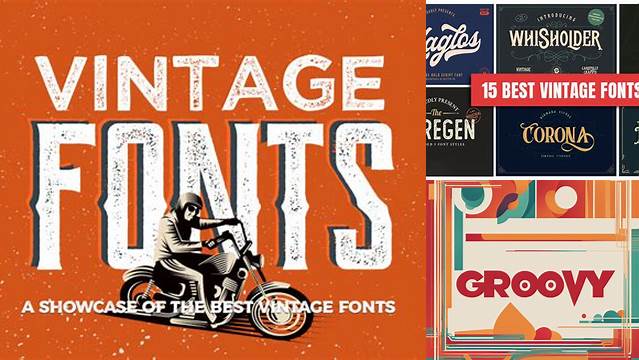
Best Retro Fonts 2026: Nostalgic Typography Guide
Hey guys! Are you ready to take a trip down memory lane with some seriously cool fonts? In the ever-evolving world of design, what's old is always new again. Retro fonts are making a huge comeback, and for good reason. They add a touch of nostalgia, character, and uniqueness to any project. Whether you're working on a branding campaign, website design, or even a personal project, the right retro font can make all the difference. So, let's dive into the best retro fonts you need to know about for 2026!
Why Retro Fonts are Making a Comeback
Retro fonts are experiencing a massive resurgence in popularity, and there are several compelling reasons why this is happening. In a world dominated by sleek, modern designs, the charm and character of retro typography offer a refreshing alternative. These fonts evoke a sense of nostalgia, reminding us of simpler times and familiar aesthetics from the past. This nostalgic appeal can be incredibly powerful, especially in marketing and branding, where creating an emotional connection with the audience is crucial.
One of the primary reasons for this comeback is the unique character that retro fonts bring to any design. Unlike the clean, minimalist fonts that have been trending for years, retro fonts often feature quirky serifs, bold strokes, and distinctive letterforms. These characteristics add personality and make your designs stand out from the crowd. They can convey a sense of authenticity and craftsmanship, which is particularly valuable in an era of mass-produced digital content. For instance, a vintage-inspired logo or website header can immediately capture attention and communicate a brand’s unique identity.
Moreover, retro fonts are incredibly versatile. They can be used in a wide range of applications, from logo design and branding to web design and print materials. The key is to choose the right font that aligns with the overall tone and message of your project. For example, a bold, script-style retro font might be perfect for a vintage-themed event poster, while a clean, geometric retro font could be ideal for a modern website with a retro twist. This adaptability makes retro fonts a valuable asset in any designer's toolkit.
Another factor driving the retro font trend is the cyclical nature of design. Trends in fashion, art, and design often come and go, only to return years later with a fresh perspective. What was once considered outdated or old-fashioned can become trendy and stylish again. This cyclical pattern is evident in the resurgence of retro fonts, as designers and brands look to the past for inspiration and seek to incorporate vintage aesthetics into their contemporary projects. This nostalgia-driven trend taps into people's emotional connections to past eras, making retro fonts a powerful tool for communication.
Furthermore, the digital age has made it easier than ever to access and experiment with a wide variety of fonts. Online font foundries and marketplaces offer an extensive selection of retro fonts, ranging from faithful recreations of classic typefaces to modern interpretations of vintage styles. This accessibility has democratized font usage, allowing designers and non-designers alike to explore different typographic options and find the perfect retro font for their needs. The ease of use and availability of these fonts contribute significantly to their continued popularity.
In conclusion, the comeback of retro fonts is driven by a combination of factors, including their unique character, versatility, nostalgic appeal, and the cyclical nature of design trends. As we move further into the 2020s, retro fonts are poised to remain a significant trend in the design world, offering a timeless and stylish way to add personality and flair to any project. Embracing these fonts allows designers to connect with audiences on an emotional level, creating memorable and impactful visual experiences. So, whether you're aiming for a vintage vibe or simply want to add a touch of character to your designs, retro fonts are a fantastic choice.
Top Retro Font Styles to Watch in 2026
When it comes to retro fonts, the options are seemingly endless. From the groovy vibes of the 1970s to the bold aesthetics of the 1980s, each era has its own distinct typographic style. To help you navigate this vast landscape, let’s explore some of the top retro font styles you should keep an eye on in 2026.
1. Groovy 70s Fonts
The 1970s were a time of bold experimentation and free-spirited expression, and this is reflected in the typography of the era. Groovy 70s fonts are characterized by their rounded shapes, psychedelic swirls, and playful curves. These fonts often evoke a sense of fun and whimsy, making them ideal for projects that aim to capture the carefree spirit of the decade. Think disco nights, bell-bottom jeans, and a whole lot of positive vibes.
Key features of 70s fonts include thick, chunky letterforms, often with a slightly distorted or irregular appearance. Script fonts with exaggerated loops and flourishes are also popular, as are display fonts with a hand-drawn feel. Colors often associated with this style are warm and earthy tones, such as oranges, yellows, and browns, as well as vibrant hues like avocado green and mustard yellow. These fonts are perfect for creating eye-catching posters, album covers, and branding materials that scream vintage cool.
For example, a font like Cooper Black perfectly embodies the 70s aesthetic with its soft, rounded serifs and heavy weight. Another great option is ITC Bauhaus, which combines geometric shapes with a playful, slightly psychedelic vibe. When using 70s fonts, consider pairing them with bold color palettes and retro-inspired graphics to create a cohesive and impactful design. These fonts are not just about looking back; they’re about bringing that groovy energy into contemporary design projects.
2. Bold 80s Fonts
The 1980s were a decade of big hair, neon lights, and bold statements, and the fonts of this era are no exception. 80s fonts are characterized by their sharp angles, geometric shapes, and futuristic flair. Think synth-pop music, arcade games, and a sense of boundless energy. These fonts are perfect for projects that need to make a strong impact and convey a sense of modernity with a retro twist.
Key features of 80s fonts include strong, angular letterforms, often with a slightly futuristic or technological feel. Sans-serif fonts with a bold, geometric design are particularly popular, as are display fonts with a strong visual presence. Neon colors, such as hot pink, electric blue, and vibrant green, are often associated with this style. Fonts like Helvetica Black and Futura Bold were widely used in the 80s and still feel relevant today. More stylized options like Outrun or Stranger Things-inspired fonts also capture the essence of the decade.
These fonts are ideal for creating bold logos, eye-catching headlines, and dynamic graphics. When using 80s fonts, don’t be afraid to experiment with bright colors and bold typography. The key is to create a design that is both visually striking and memorable. Whether you're designing a retro-themed video game, a vibrant concert poster, or a nostalgic branding campaign, 80s fonts can help you capture the energy and excitement of the decade.
3. Vintage Script Fonts
Vintage script fonts exude elegance and sophistication, harking back to the golden age of hand-lettering and calligraphy. These fonts are characterized by their flowing curves, delicate strokes, and ornate details. They often evoke a sense of classic beauty and timeless charm, making them ideal for projects that aim to convey a sense of luxury or refinement. Think old-fashioned signage, vintage advertisements, and elegant wedding invitations.
Key features of vintage script fonts include elegant letterforms with elaborate swashes and flourishes, often with a hand-drawn or calligraphic appearance. These fonts can range from formal and traditional to more playful and whimsical. Fonts like Great Vibes, Lobster, and Pacifico are popular choices for their beautiful, flowing lines and classic appeal. These fonts are perfect for adding a touch of elegance to logos, invitations, and other design materials.
When using vintage script fonts, consider pairing them with complementary serif or sans-serif fonts to create a balanced and harmonious design. Use them sparingly to highlight key words or phrases, and let their elegance shine. Whether you're designing a sophisticated branding campaign, a romantic wedding invitation, or a vintage-inspired poster, vintage script fonts can help you create a design that is both beautiful and timeless.
4. Art Deco Inspired Fonts
Art Deco fonts draw inspiration from the Art Deco movement of the 1920s and 1930s, which was characterized by its geometric shapes, streamlined forms, and luxurious ornamentation. These fonts are often elegant and sophisticated, with a touch of glamour and modernity. Think Great Gatsby-era parties, sleek skyscrapers, and a sense of timeless elegance. Art Deco fonts are perfect for projects that aim to convey a sense of luxury and refinement.
Key features of Art Deco fonts include geometric letterforms with clean lines and symmetrical shapes. These fonts often feature decorative elements, such as stylized serifs and ornate details. Fonts like Bebas Neue, Raleway, and Montserrat have a subtle Art Deco influence, while more stylized options like Gotham and Futura capture the bold, geometric aesthetic of the era. These fonts are perfect for creating sophisticated logos, elegant invitations, and stylish branding materials.
When using Art Deco fonts, consider pairing them with metallic accents and geometric patterns to create a cohesive and visually striking design. These fonts are ideal for projects that require a touch of elegance and sophistication, such as high-end branding, luxury packaging, and upscale event invitations. The combination of classic elegance and modern flair makes Art Deco fonts a timeless choice for any design project.
How to Use Retro Fonts Effectively
Okay, so you've got your favorite retro fonts picked out. Awesome! But how do you actually use them effectively in your designs? It's not just about slapping a cool-looking font onto a project and calling it a day. To really nail the retro vibe, you need to consider a few key factors.
First and foremost, context is key. Think about the overall tone and message of your project. Are you going for a playful, nostalgic vibe? Or a more serious, vintage-inspired feel? The right font can help you set the mood, but the wrong font can clash with your message and leave your audience confused. For example, a groovy 70s font might be perfect for a retro-themed party invitation, but it might not be the best choice for a corporate website.
Pairing fonts is another crucial aspect of effective retro typography. It’s often best to pair a retro font with a more modern, neutral font to create balance and contrast. This prevents your design from feeling too dated or overwhelming. For instance, you might pair a bold 80s font with a clean sans-serif font like Helvetica or Arial. Or, you could combine a vintage script font with a simple serif font like Times New Roman. The goal is to create a visual hierarchy and ensure that your typography is both readable and visually appealing.
Color palettes play a significant role in conveying the retro aesthetic. Think about the colors that were popular in the era you're trying to evoke. For example, 70s designs often feature warm, earthy tones like oranges, browns, and yellows, while 80s designs tend to incorporate bright, neon colors like pink, blue, and green. Using these colors in your design can help reinforce the retro vibe and create a cohesive visual experience. Don't be afraid to experiment with color combinations, but always keep readability and visual harmony in mind.
Visual elements and graphics should also complement your retro fonts. Incorporating vintage illustrations, patterns, and textures can enhance the overall retro feel of your design. Think about using halftone patterns, grain textures, and retro-inspired icons to add depth and visual interest. Just be sure to avoid cluttering your design with too many elements. Less is often more when it comes to retro design. A clean, minimalist approach can be just as effective as a busy, maximalist design.
Hierarchy and readability are always important, no matter what style you're using. Make sure your retro fonts are legible, especially in body text. If a font is too decorative or stylized, it might be better suited for headlines or logos. Use font sizes and weights strategically to create a clear visual hierarchy and guide your audience's eye through the design. Remember, the goal is to communicate your message effectively, so prioritize readability above all else.
Finally, don't be afraid to experiment and have fun! Retro design is all about embracing the past while putting your own unique spin on it. Try out different font combinations, color palettes, and visual elements to see what works best for your project. Get inspired by vintage designs, but don't be afraid to break the rules and create something new and exciting. The best retro designs are those that feel both nostalgic and fresh at the same time.
Conclusion: Embracing the Timeless Appeal of Retro Fonts
In conclusion, retro fonts are more than just a design trend; they're a timeless way to add character, nostalgia, and personality to your projects. As we look ahead to 2026, these fonts are set to continue their reign in the design world, offering a versatile and stylish option for a wide range of applications. Whether you're aiming for the groovy vibes of the 70s, the bold energy of the 80s, or the classic elegance of vintage scripts, there's a retro font out there that's perfect for you.
The key to using retro fonts effectively is to understand their unique characteristics and how they can be used to convey your message. By considering factors like context, font pairing, color palettes, and visual elements, you can create designs that are both visually appealing and emotionally resonant. Remember, retro design is about more than just looking back; it's about bringing the best of the past into the present and creating something new and exciting.
So, go ahead and embrace the timeless appeal of retro fonts. Experiment with different styles, find your favorites, and let your creativity flow. Whether you're a seasoned designer or just starting out, retro fonts offer a fantastic way to add a touch of character and flair to your projects. Here's to a future filled with awesome typography and designs that stand the test of time! Keep it retro, guys!